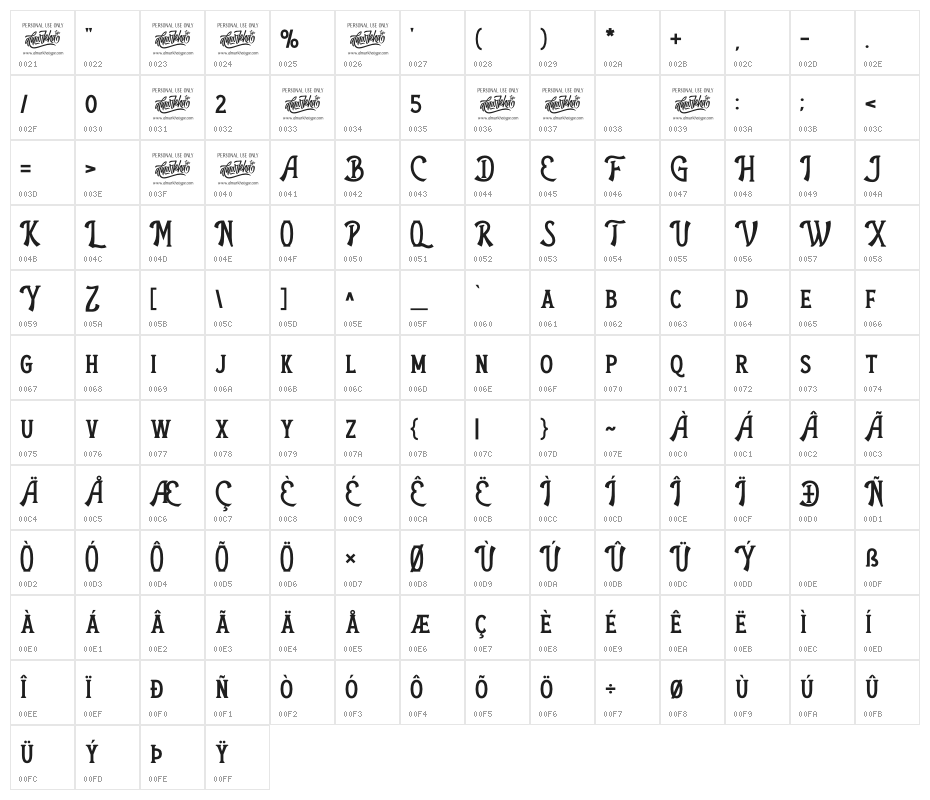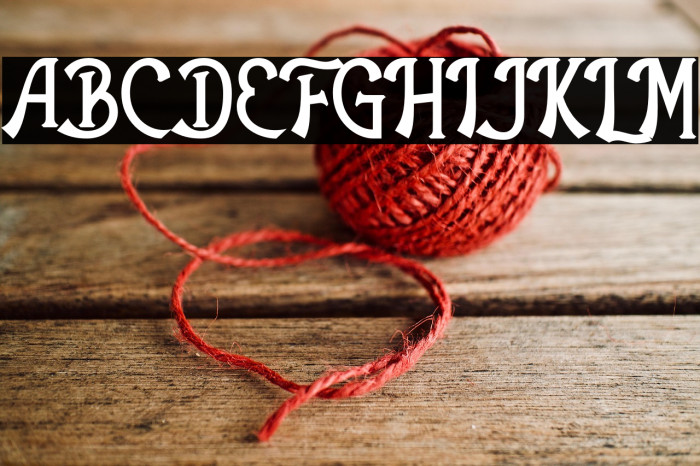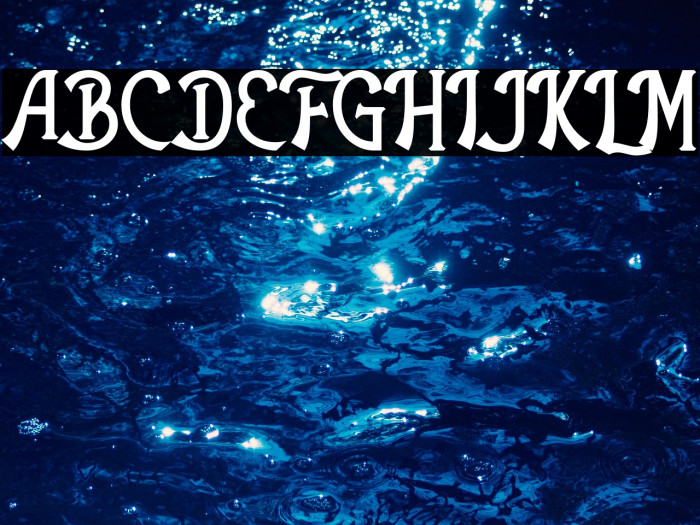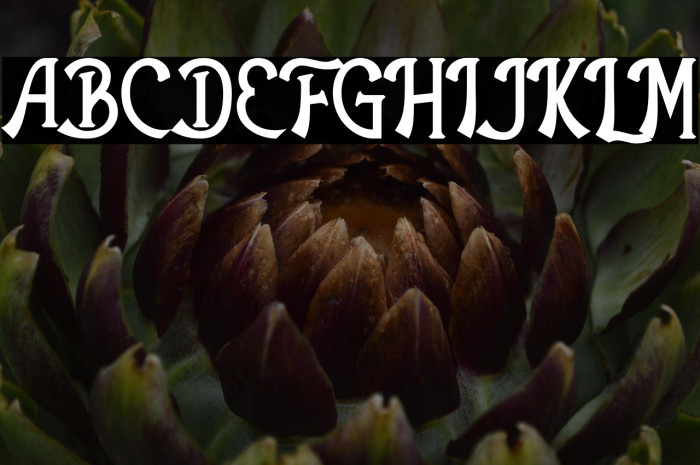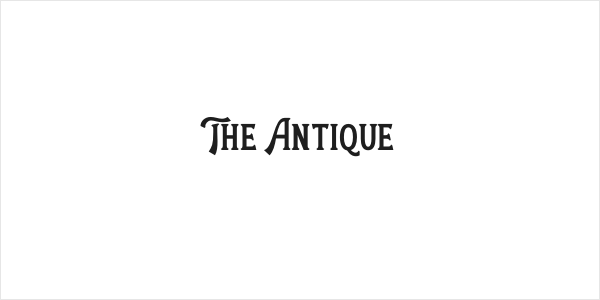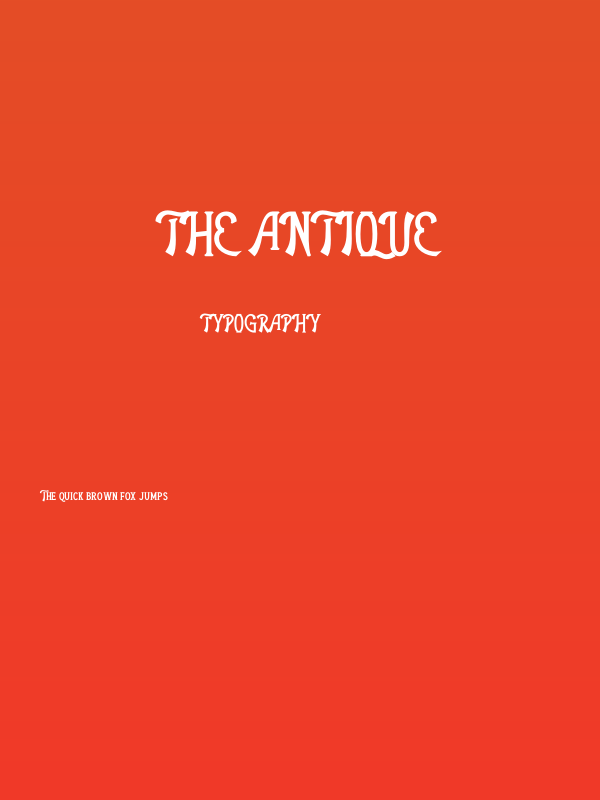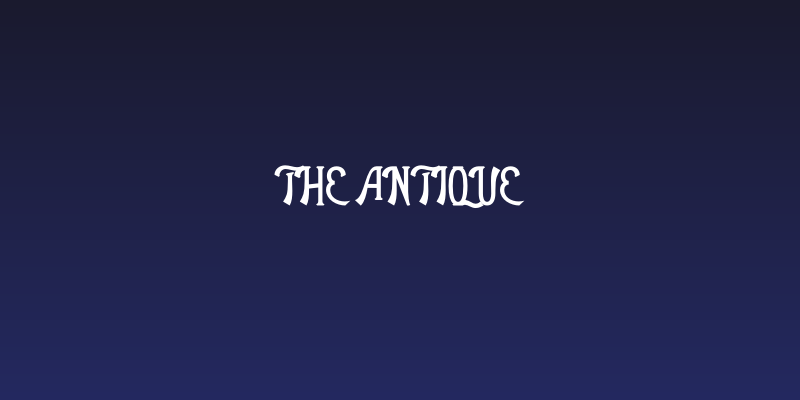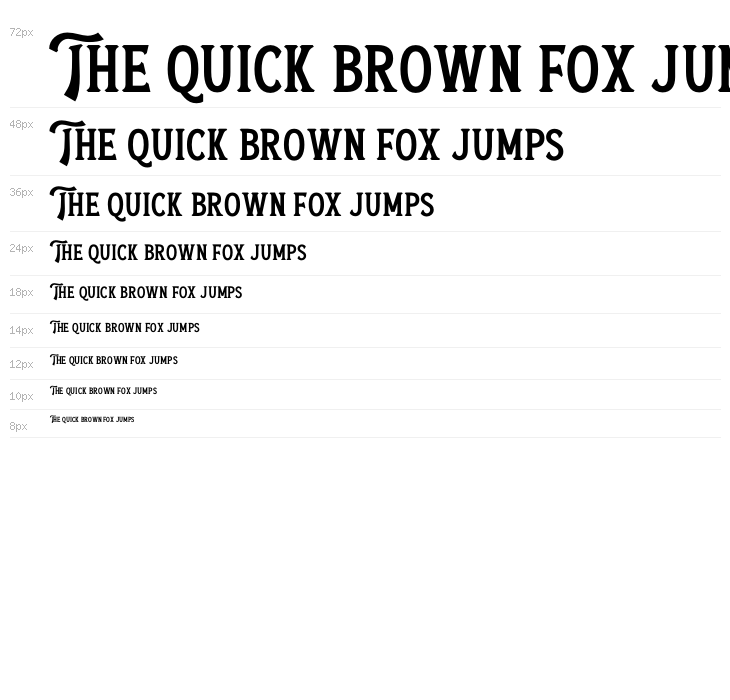
The Antique Font
The Antique Description
This font features a bold and decorative style with a vintage flair. The uppercase letters are characterized by their unique, flowing serifs and slightly exaggerated curves, giving them a distinct and artistic appearance. The lowercase letters maintain a consistent style, complementing the uppercase with a balanced and cohesive look. The numbers and special characters follow the same design principles, ensuring uniformity across all glyphs. The font's overall aesthetic is reminiscent of classic signage or posters, making it ideal for projects that require a touch of nostalgia and elegance.
| Use Case | Headlines, Logos, Decorative text |
| Proposed Projects | Ideal for vintage-themed posters, signage, branding, and decorative headings. |